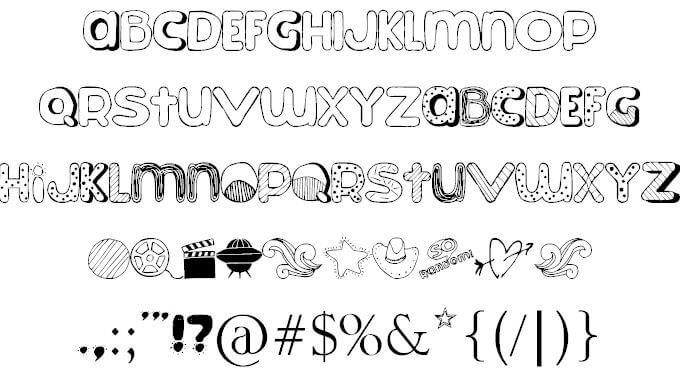
So Random Font
The So Random Font. The latest font style. In sans serif font family so random font has its importance. In selfie font its awesome design and such beautiful characters are very impressive.
This font is a very high-quality font and it is also Disney font which is created by a great font stylish Disney Chann Lover. It has many Disney pages on different font styles.